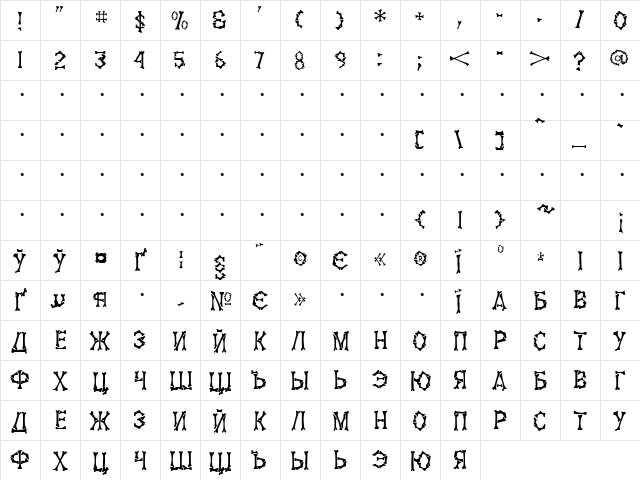
SetterVK black Normal
Design Context for SetterVK black Typeface
SetterVK black is a composed and adaptable typeface that performs quietly and consistently across a wide range of design contexts.